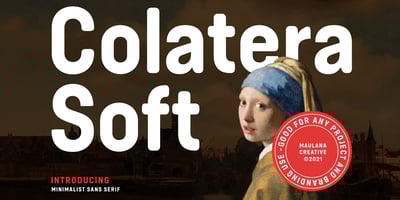
Colatera Soft
Colatera Soft font
Colatera Soft Font Family was designed by Gilang Maulana and published by Maulana Creative. Colatera Soft contains 1 styles and family package options. Colatera Soft Round is a minimalist sans serif font. With regular rounded edge stroke, fun character. To give you an extra creative work. Colatera font support multilingual more than 100+ language. This font is good for logo design, Social media, Movie Titles, Books Titles, a short text even a long text letter and good for your secondary text font with script typeface. Make a stunning work with Colatera font. Cheers, MaulanaCreative